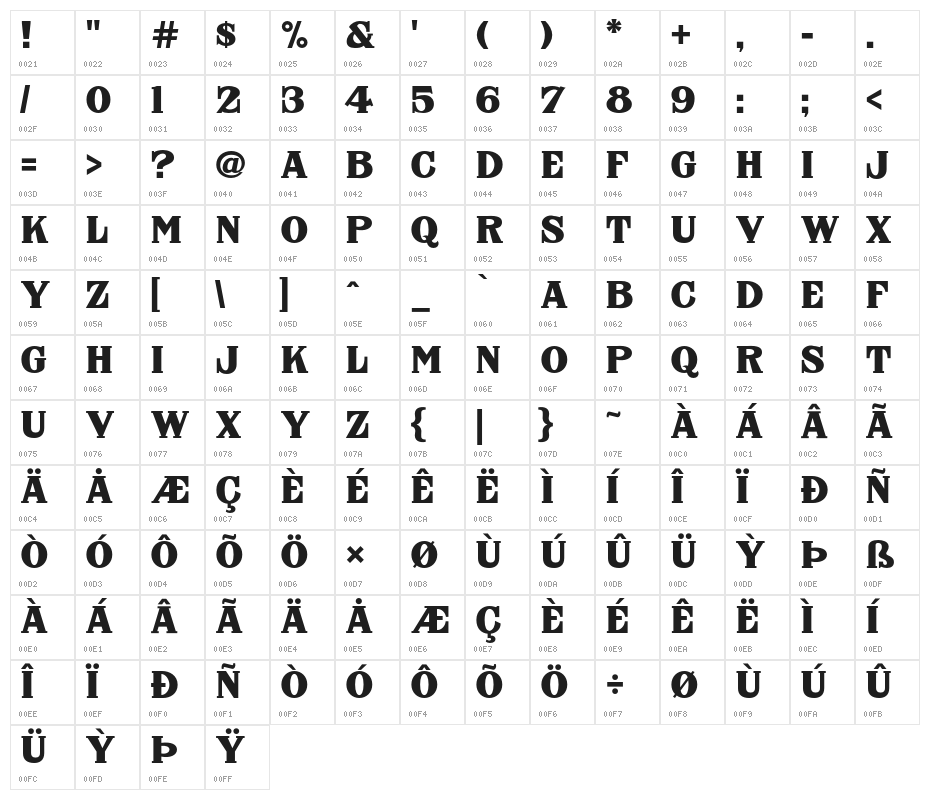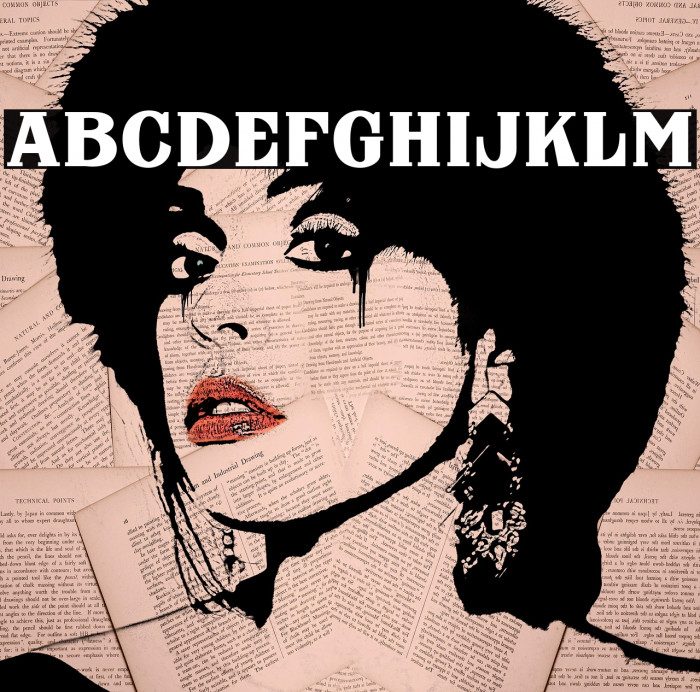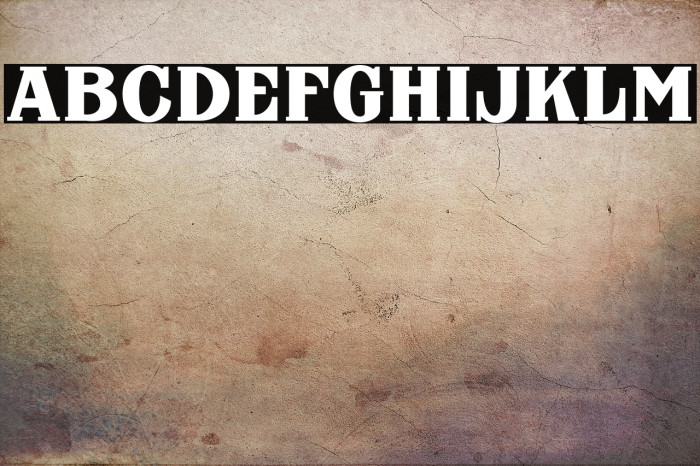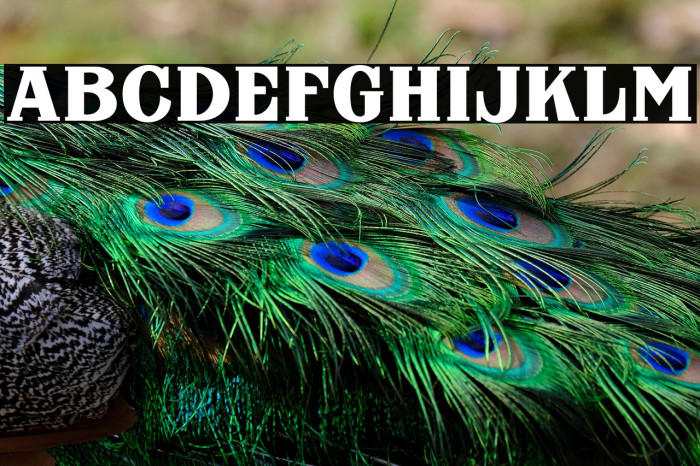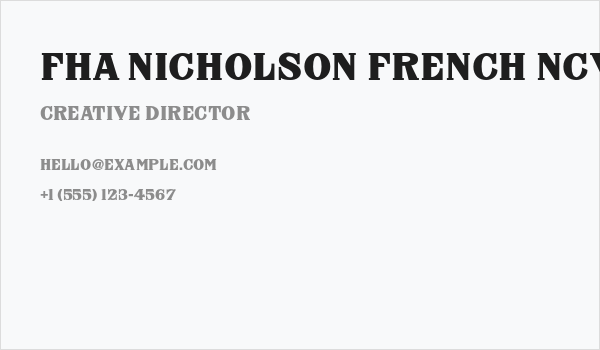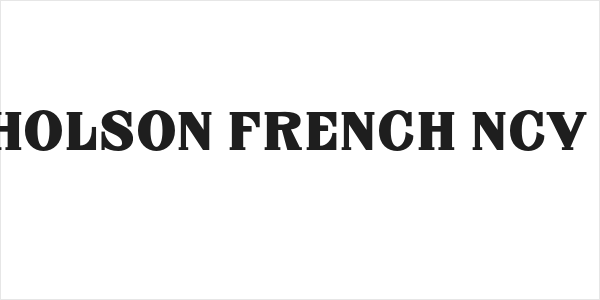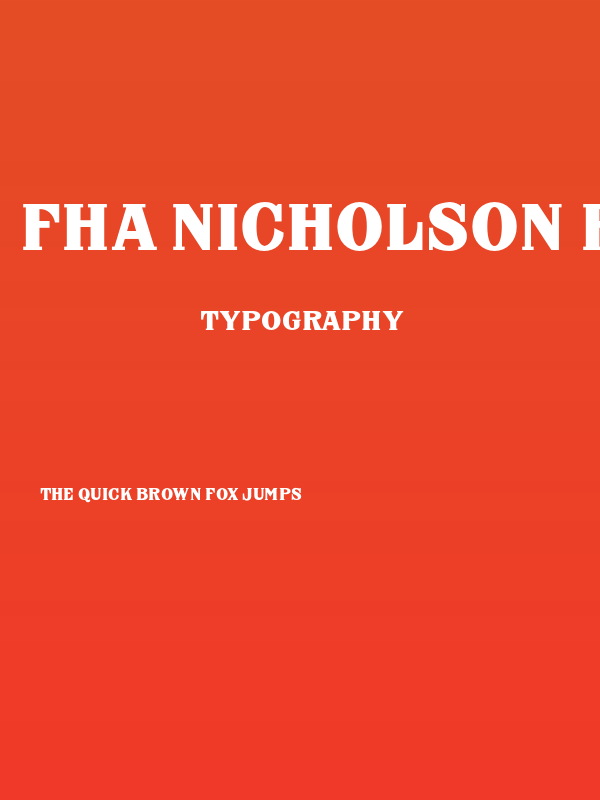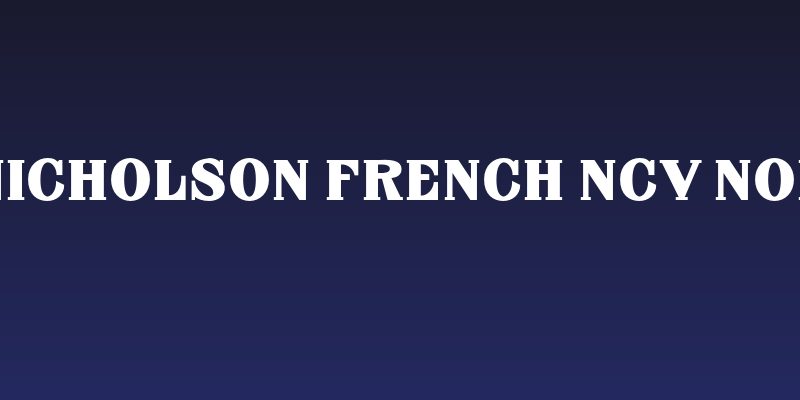
FHA Nicholson French NCV Normal Font
FHA Nicholson French NCV Normal Description
This font features a bold and commanding presence with its strong, thick strokes and high contrast between thick and thin lines. The serifs are pronounced, adding a touch of classic elegance to the overall design. The uppercase letters are particularly striking, with a robust and authoritative feel, while the lowercase letters maintain a consistent style that complements the uppercase. The numerals are clear and bold, ensuring readability. Special characters are well-defined, maintaining the font's cohesive style. This font's design is both timeless and versatile, making it suitable for a variety of applications.
| Proposed Projects | Ideal for headlines, book covers, posters, and branding materials where a strong, classic presence is desired. |